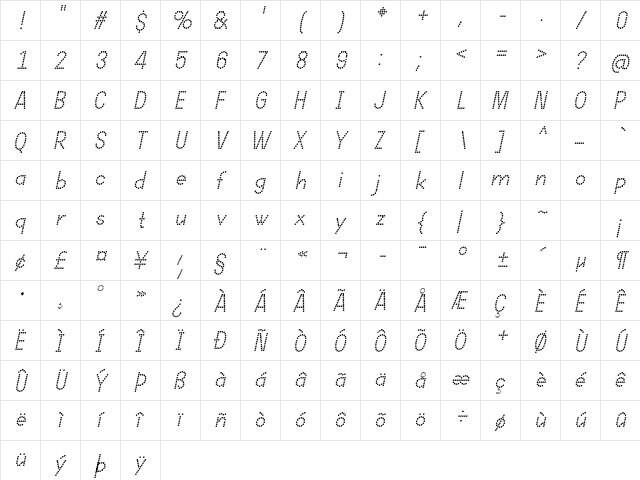
DOTCIRFUL Italic
Design Context for DOTCIRFUL Typeface
DOTCIRFUL celebrates the constraints of early digital type, turning pixel geometry into a distinctive and immediately recognisable style. The dynamic lean of this cut emphasises speed and emphasis in any layout.
Well-suited to indie game interfaces, retro computing aesthetics, and pixel art-adjacent design work.
Pro Tip: Use DOTCIRFUL at sizes that align with its pixel grid for the sharpest rendering — scaling to non-integer multiples can introduce unwanted blur.